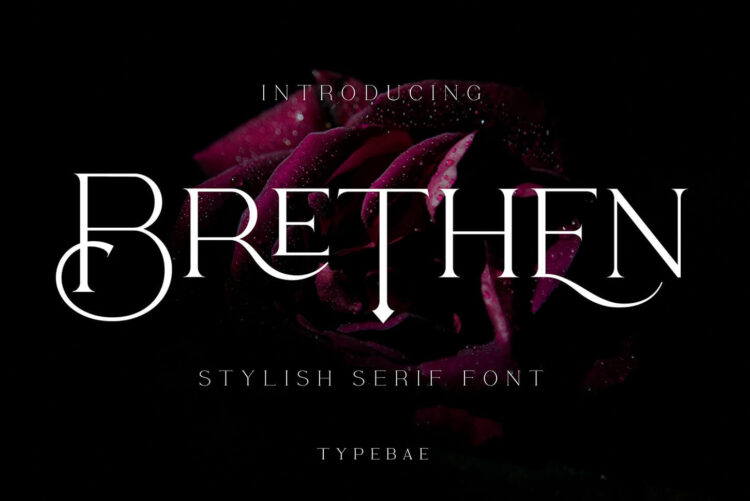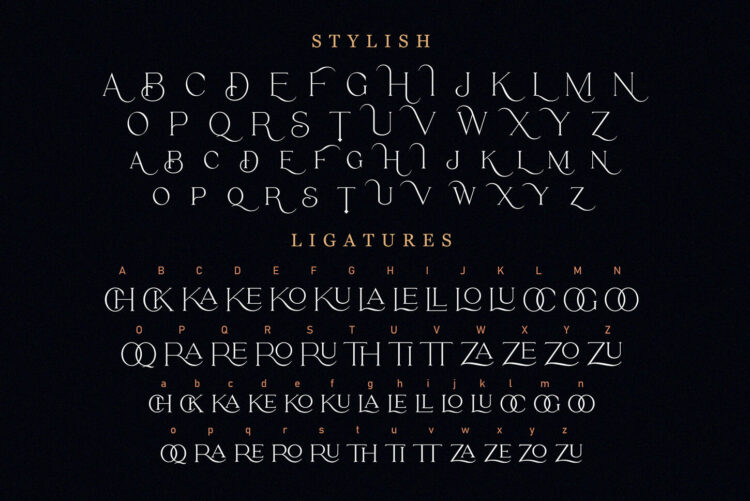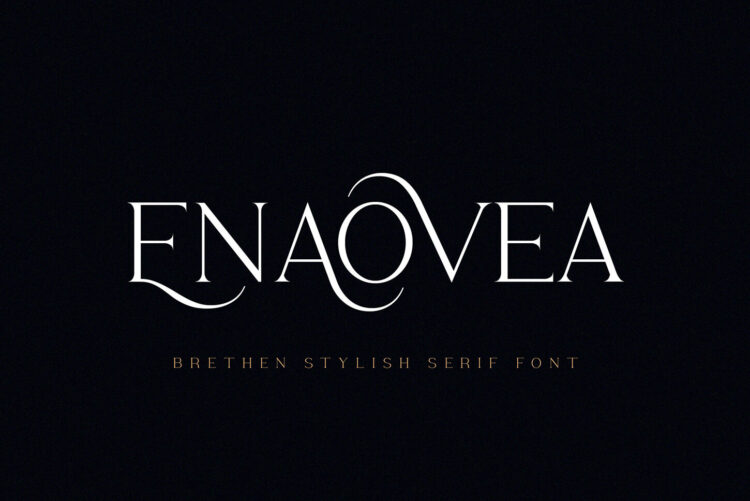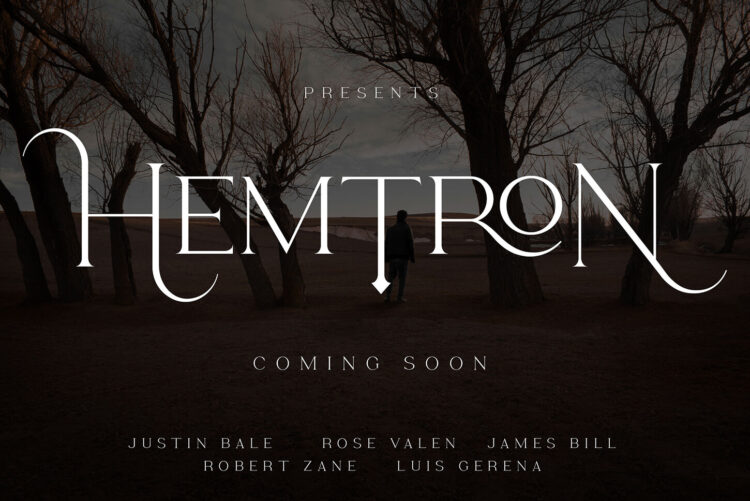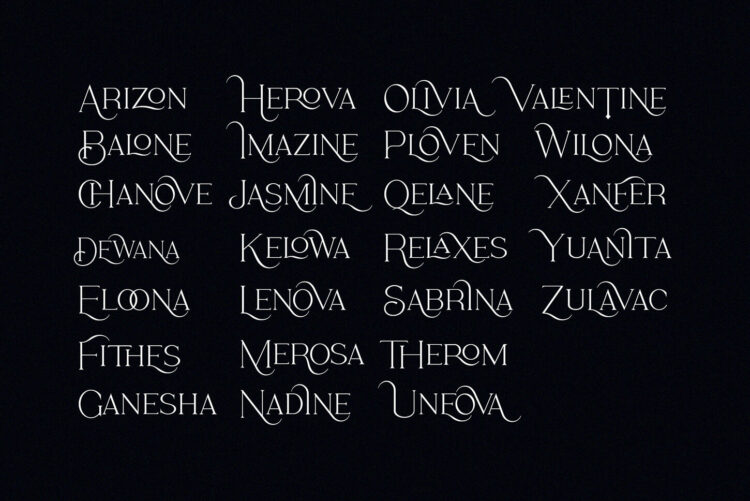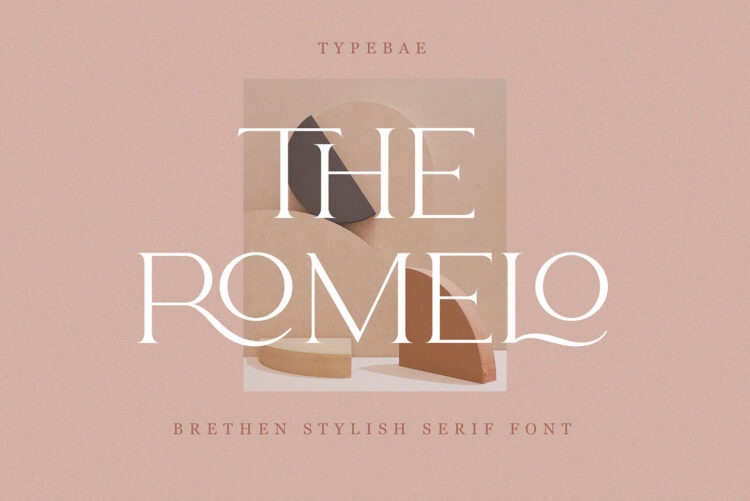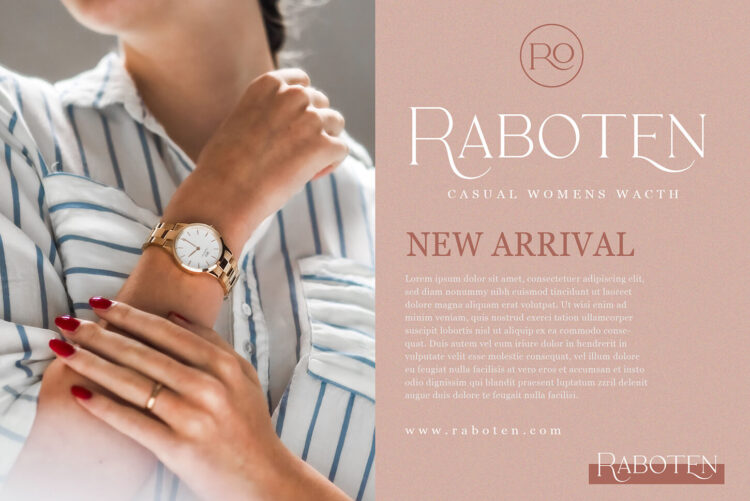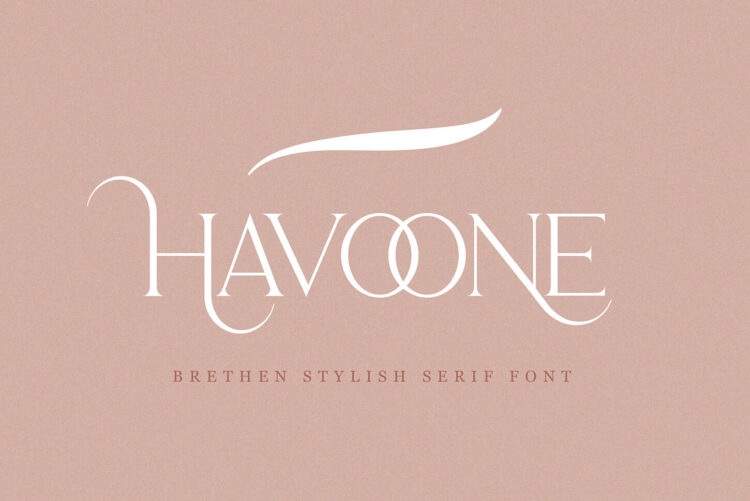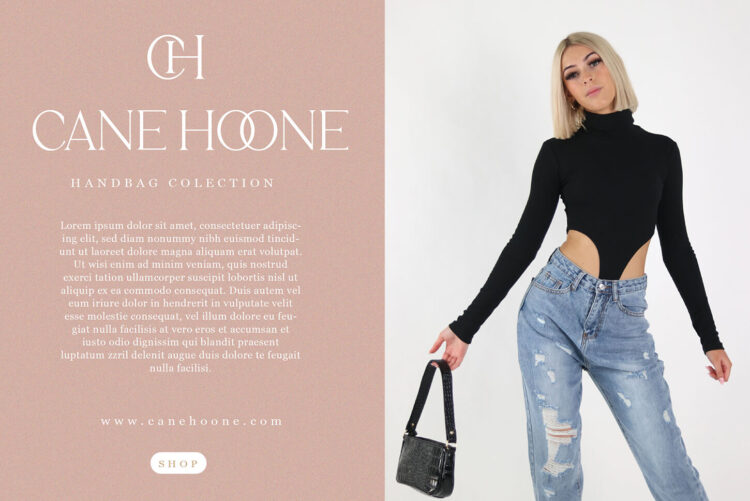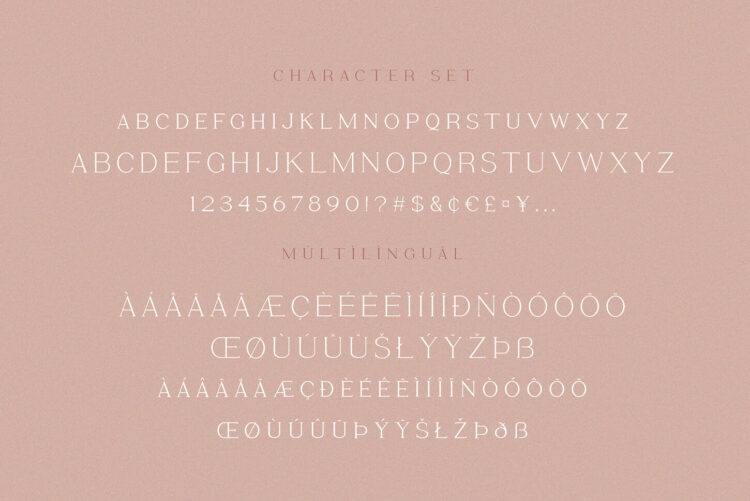
Berthen is a stylish and elegant serif font. It looks beautiful on a variety of designs requiring a personalized style, such as wedding invitations, thank you cards, weddings, greeting cards, logos and so on. Bring your projects to the highest levels!
Features:
- Multilingual
- Ligatures
- Stylistic Alternates